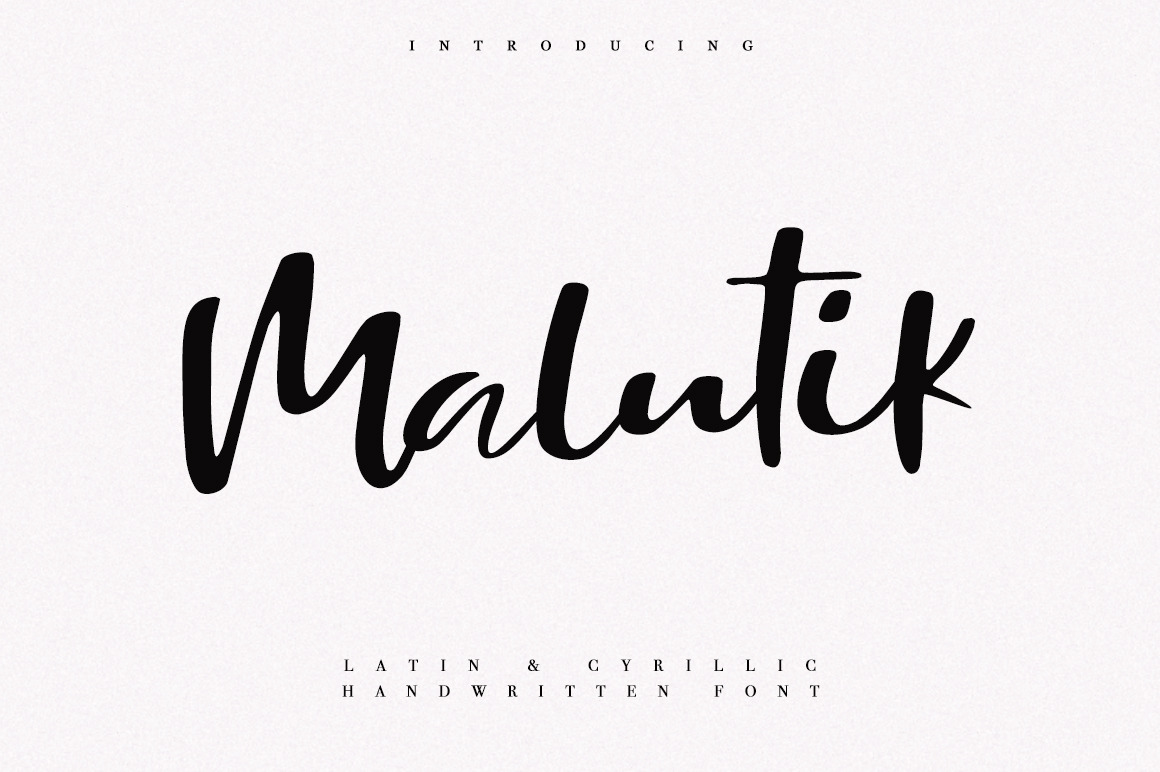
Malutik | Cyrillic & Latin
Malutik Font is perfect for playful children's branding, cute toy packaging, cheerful educational materials, whimsical book covers, adorable greeting cards, sweet bakery communications, joyful party invitations, and delightful advertising campaigns. This charming typeface works wonderfully in both digital applications and print media where cuteness and innocent charm are essential design elements.
What makes Malutik Font so exciting is its adorable interpretation of childlike wonder and innocent sweetness through petite letterforms that seem crafted with the same tender care and playful spirit that defines the most beloved childhood memories. The font features tiny characters with cute proportions, sweet curves, and endearing details that create an immediate atmosphere of innocence, joy, and the heartwarming charm of childhood simplicity. Its adorable personality and youthful inspiration make it ideal for brands seeking to connect with families and children while communicating pure sweetness, innocent fun, and the delightful charm that makes childhood so precious.
The Malutik Font family includes multiple weight variations with different cuteness levels, along with playful alternates and sweet ornamental elements. Each style maintains the typeface's adorable character while offering comprehensive character sets including cute numerals, child-friendly punctuation marks, and special symbols designed to enhance children's communications and family branding efforts across various delightful contexts.
This remarkable typeface represents the perfect fusion of childhood innocence and professional functionality for family entertainment and educational industries. Whether you're developing children's product identities, creating educational content materials, or designing family celebration promotions, Malutik Font Free Download provides the sweet charm and versatility needed to delight young audiences and their families. The font's cute appeal makes it particularly effective for toy companies, children's publishers, family entertainment venues, and businesses celebrating the pure joy and innocent sweetness of childhood experiences.
The carefully crafted adorable details and optimized child-friendly performance in Malutik Font ensure both innocent authenticity and clear communication across all family applications. Its sweet presence makes it perfect for children's branding, family marketing materials, and delightful communications where its full cute character can create lasting smiles and connections with audiences seeking the pure joy, innocent charm, and heartwarming sweetness that makes childhood so wonderfully magical.